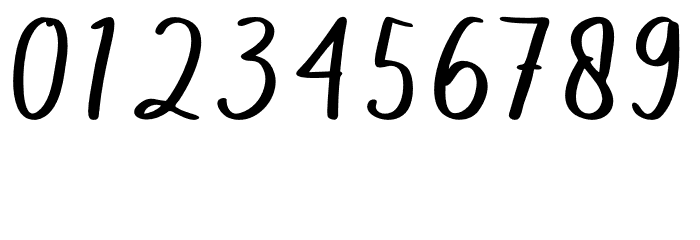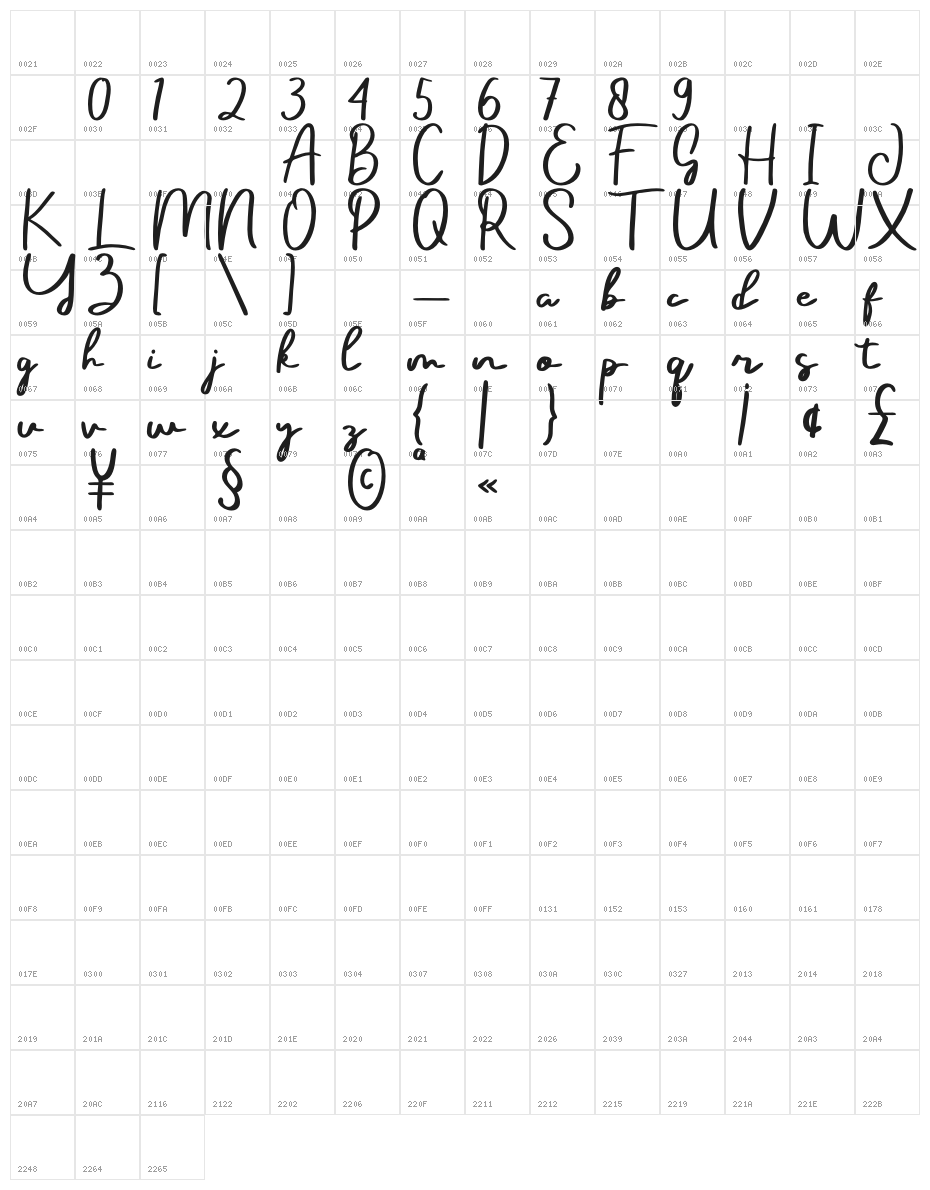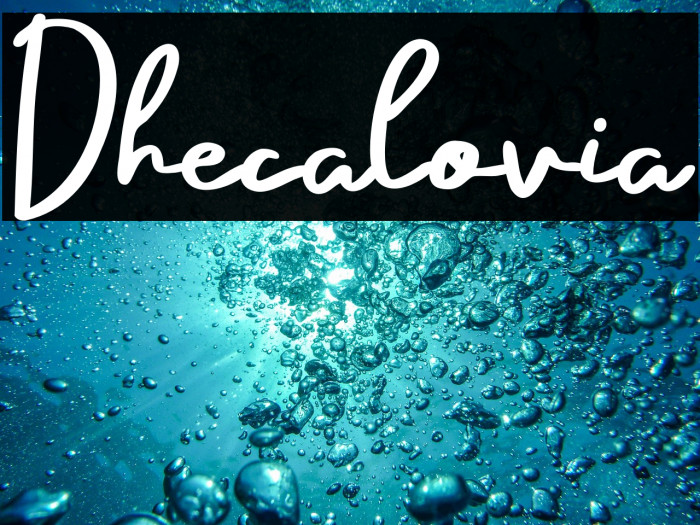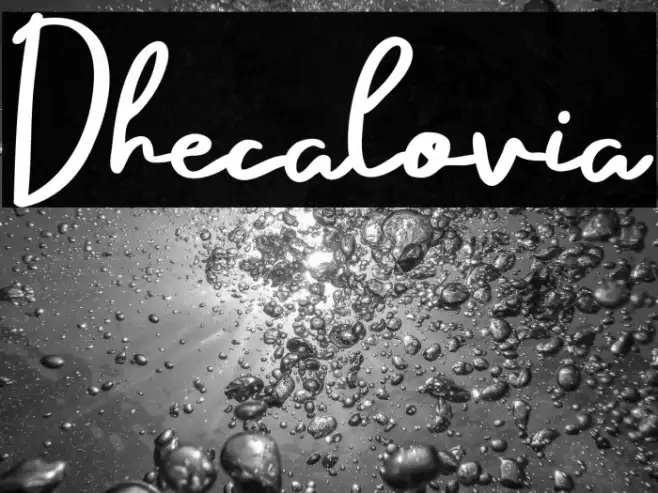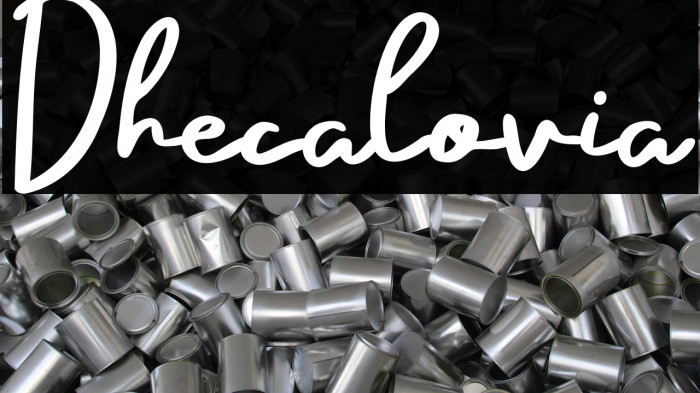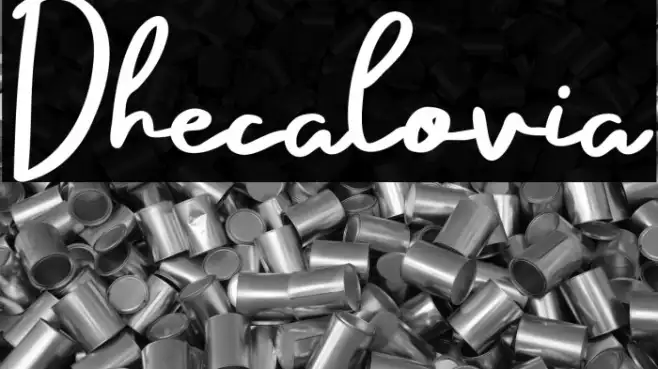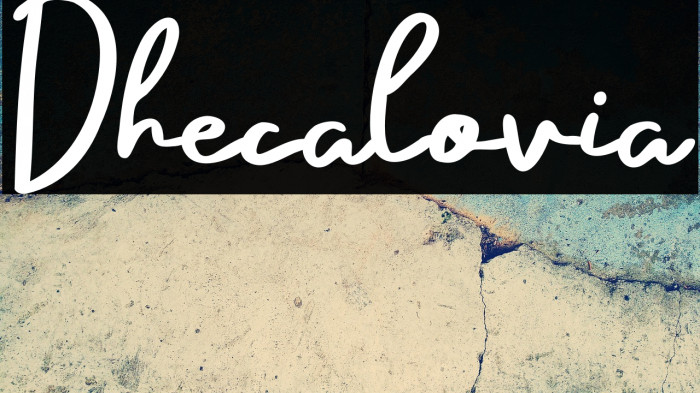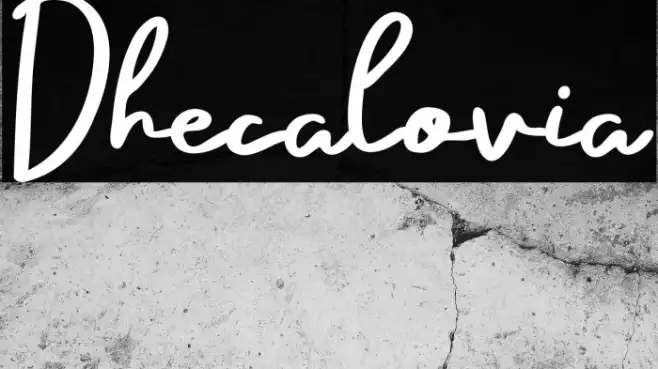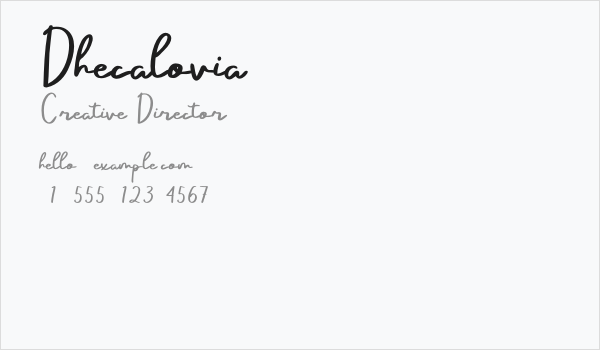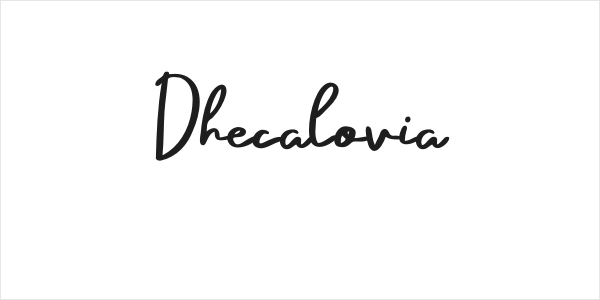
Dhecalovia Font
Dhecalovia Description
This font features a playful and casual script style with a handwritten appearance. The uppercase letters are slightly more structured, while the lowercase letters flow with a smooth, cursive elegance. The strokes are consistent in thickness, providing a balanced and harmonious look. The numbers maintain the same playful style, making them easily readable yet visually engaging. The special characters integrate seamlessly with the rest of the font, ensuring a cohesive design. This font is perfect for projects that require a personal touch, such as invitations, greeting cards, or branding materials.
| Proposed Projects | Ideal for invitations, greeting cards, branding, and personal projects. |